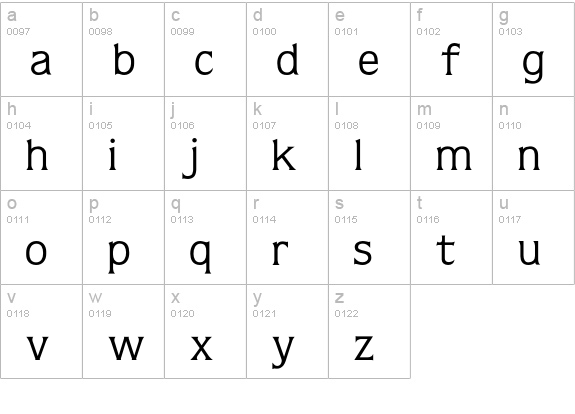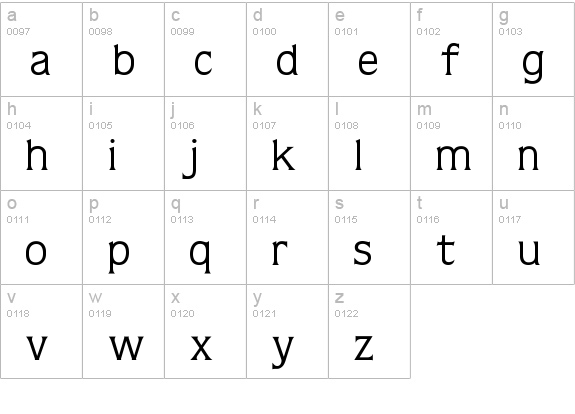
QuorumBook Font Details
Introducing QuorumBook, a captivating font that combines elegance with a touch of modernity. This unique typeface is perfect for adding a touch of sophistication to your designs, whether it be for branding, advertising, or any other creative project. With its clean lines and well-balanced letterforms, QuorumBook effortlessly captures attention and leaves a lasting impression. One of the best things about QuorumBook is that it is freely available to download at FontsMarket.com. This means that you can easily access this stunning font without any cost, making it an excellent choice for designers on a budget or anyone looking to add a touch of class to their work. QuorumBook's versatility is another standout feature. Whether you're creating a logo, designing a website, or crafting a magazine layout, this font adapts seamlessly to any context. Its legibility and readability ensure that your message is conveyed clearly and effectively, while its unique personality adds a dash of flair to your designs. With a wide range of characters and an extensive set of glyphs, QuorumBook offers endless possibilities for creative expression. Its carefully crafted curves and precise detailing make it a joy to work with, allowing designers to bring their visions to life with ease. Whether you're a seasoned professional or a budding designer, QuorumBook is a font that will elevate your work to new heights. Its timeless appeal and exquisite craftsmanship will make your designs stand out from the crowd, leaving a lasting impression on your audience. Discover the beauty and versatility of QuorumBook today. Download it for free at FontsMarket.com and unlock a world of creative possibilities. Embrace this stunning font and let it take your designs to the next level.